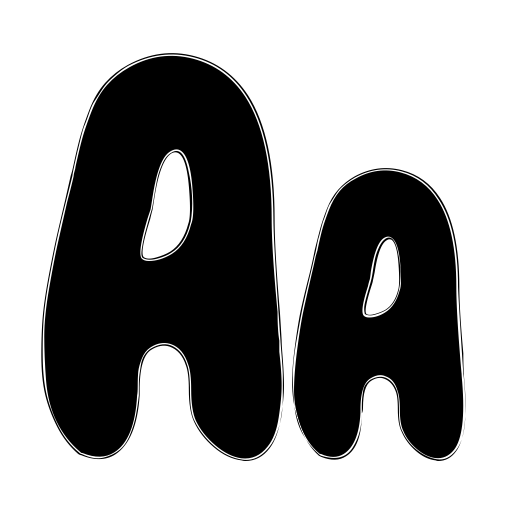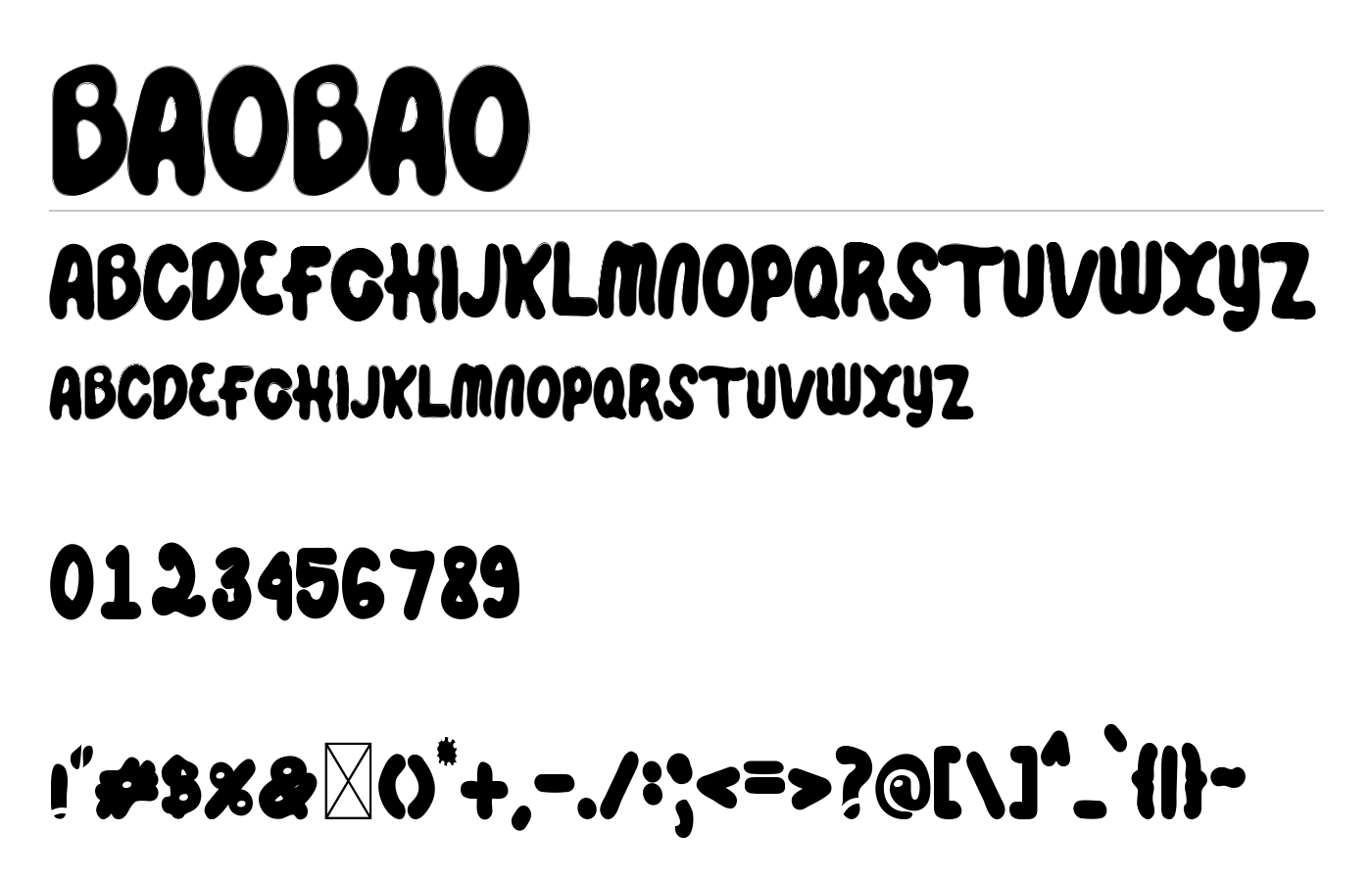
BAOBAO is a playful, bold sans serif font with rounded, bubbly letterforms that give it a friendly and approachable vibe. Its thick weight and compact shapes make it perfect for attention-grabbing headlines, children's materials, and creative branding where a fun, energetic feel is desired. This font’s unique soft and informal style works well in casual designs that want to convey warmth and cheerfulness.
BAOBAO Font
About BAOBAO Font